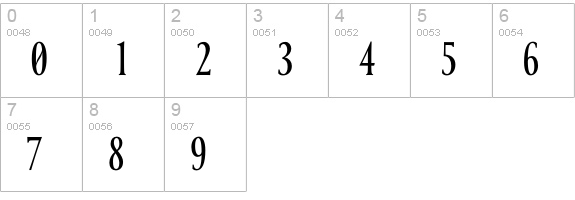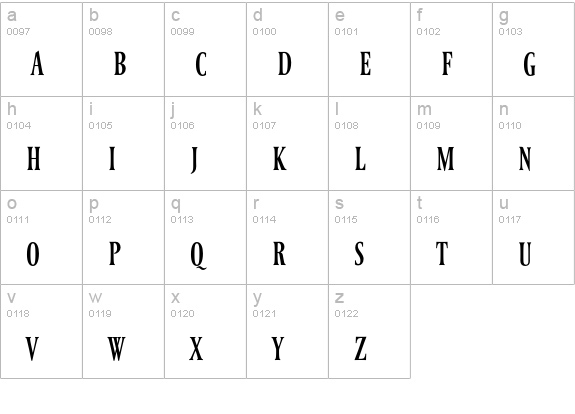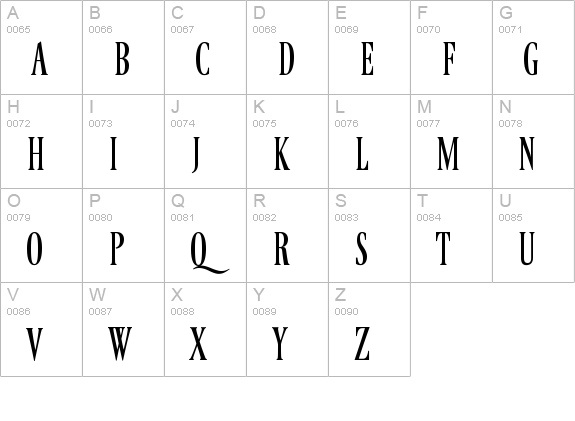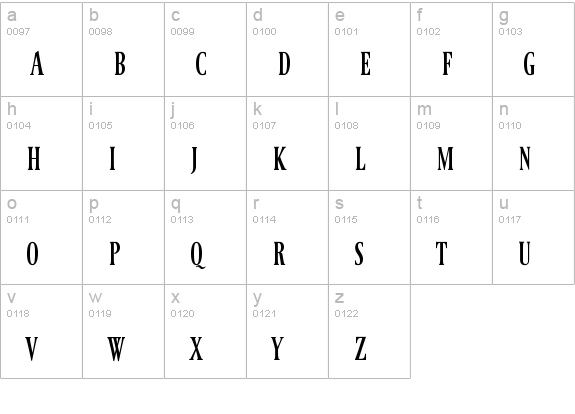
Introducing Ferrum, a stunningly versatile font that effortlessly combines elegance with a touch of modernity. With its sleek and sophisticated design, Ferrum is the perfect choice for any project that requires a refined and polished look. The beauty of Ferrum lies in its carefully crafted letterforms, which exude a sense of timeless appeal. Each character has been meticulously designed to ensure maximum legibility and readability, making it an ideal choice for both print and digital media. What sets Ferrum apart is not only its impeccable design, but also its accessibility. This remarkable font is completely free, allowing you to bring a touch of sophistication to your projects without breaking the bank. It can be freely downloaded at FontsMarket.com, ensuring that you have easy access to this exceptional font whenever inspiration strikes. Whether you are designing a logo, creating a website, or crafting a print advertisement, Ferrum will elevate your work to new heights. Its clean and minimalist aesthetic will effortlessly complement any design, while its versatility allows it to adapt to a wide range of contexts. Ferrum is not just a font - it is a statement of style and sophistication. Embrace the timeless elegance of Ferrum and elevate your design projects to new levels of excellence. With its free availability on FontsMarket.com, there's no reason not to add this exceptional font to your collection today.